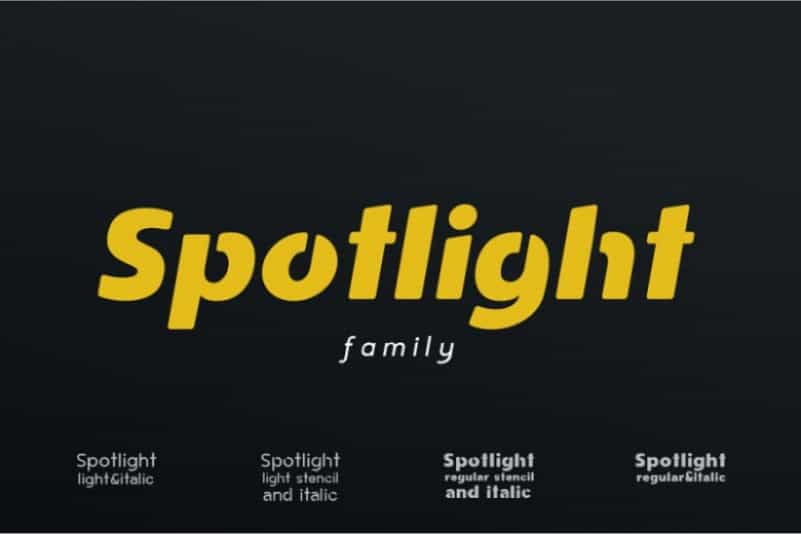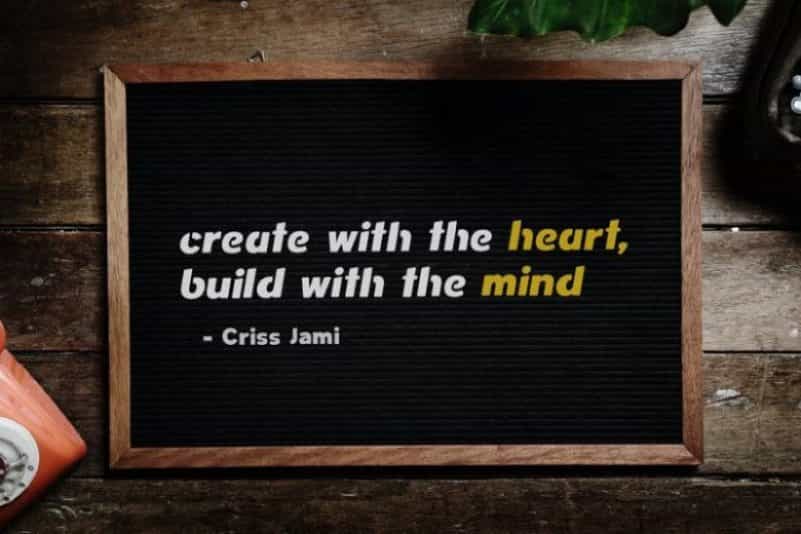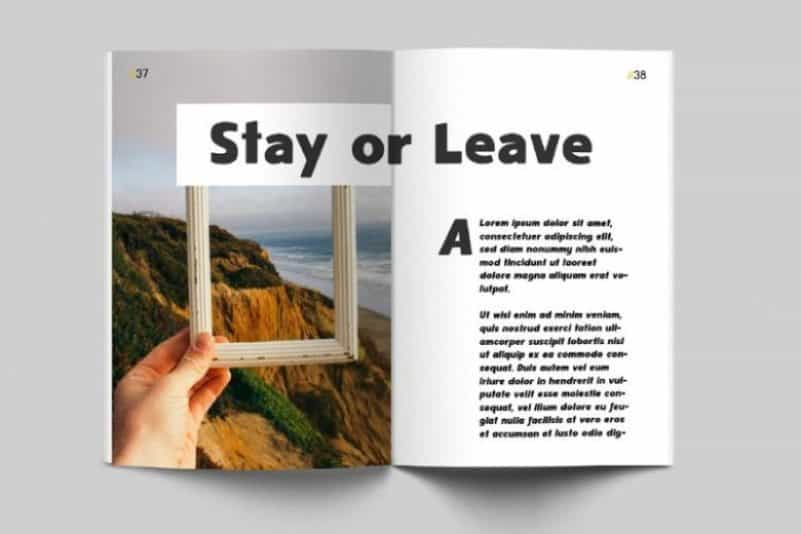
Spotlight is a new sans-serif typeface, it seems minimalist and kinetic. It’s can be useful as display with special ligatures. It is available on the internet and is created by Shaped Fonts. This is a contemporary sans-serif font and can be used for headings, logos, and even text copy. It has clear and lovely letters and the thickness of the strokes is quite moderate and you have the options of regular or true italics.